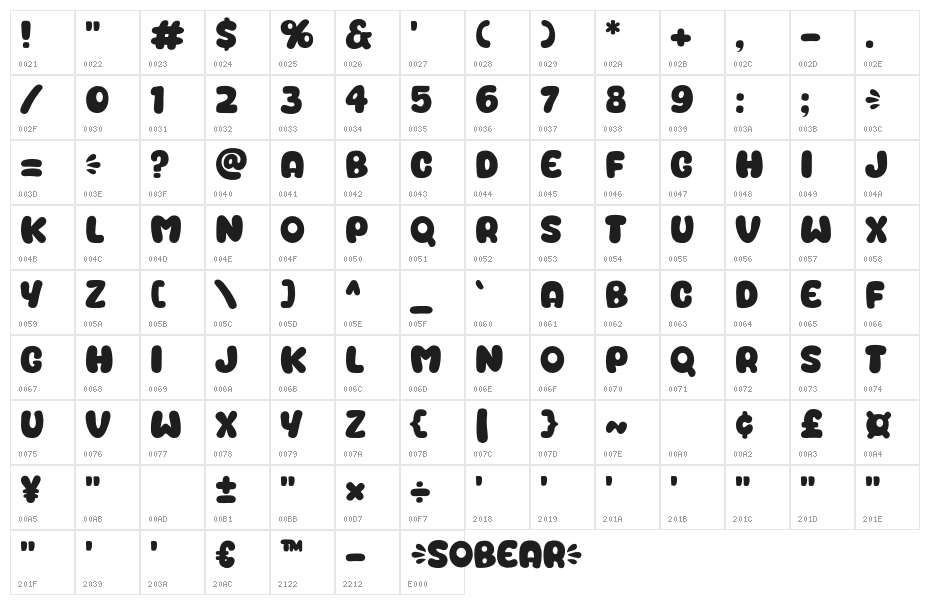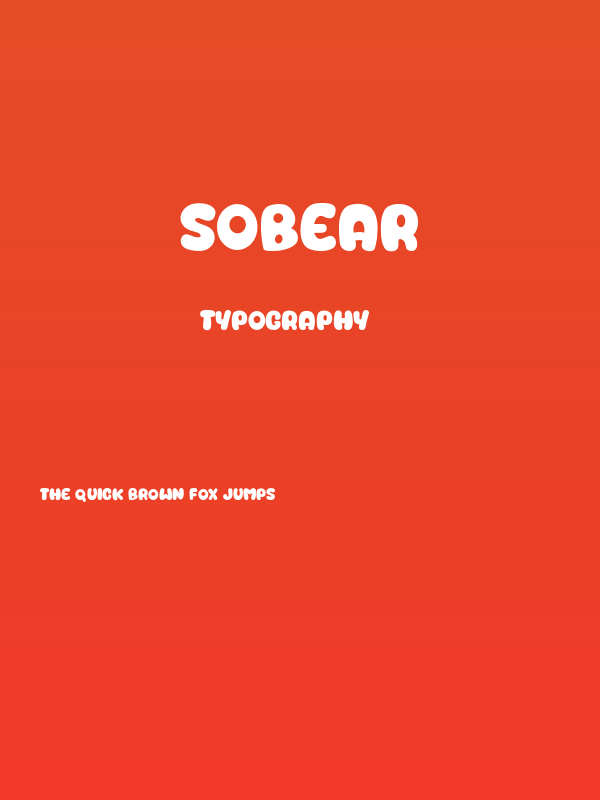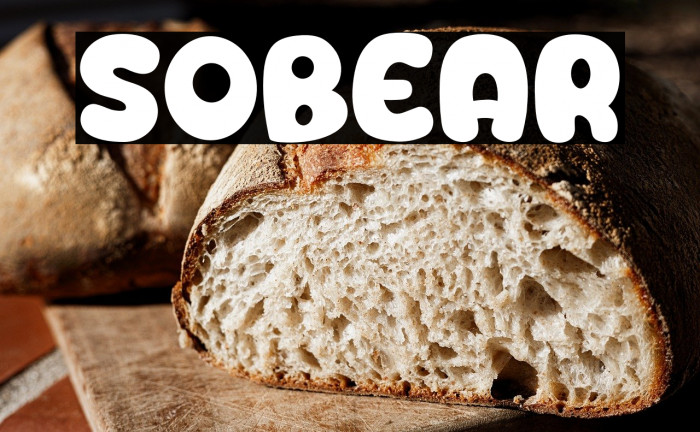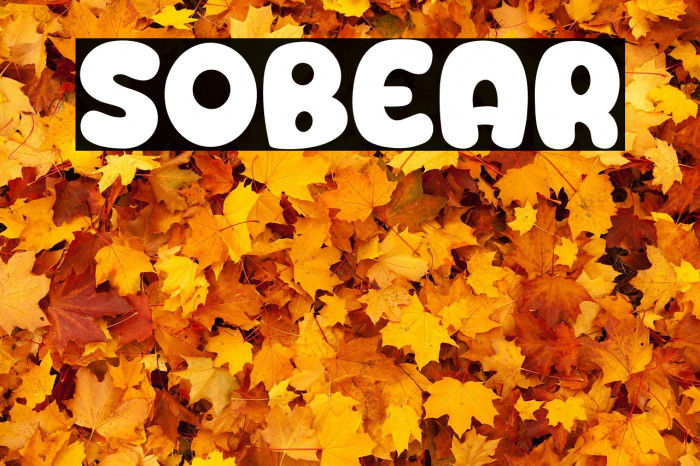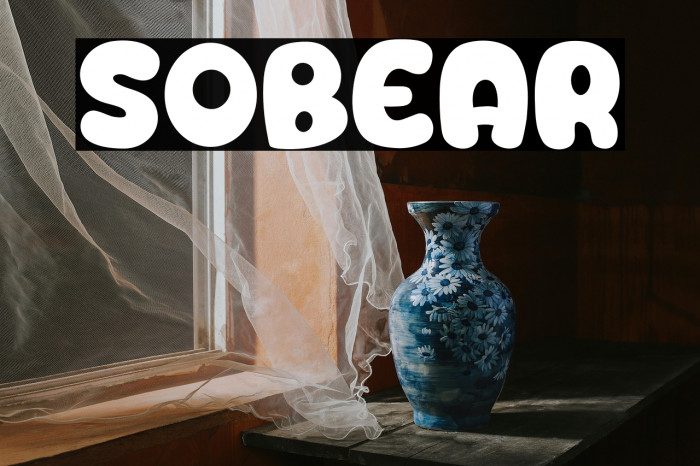
Sobear Font
Sobear Description
This playful and bold font features rounded, bubbly characters that exude a sense of fun and whimsy. The letters are thick and uniformly weighted, giving them a strong presence on the page. The rounded edges and lack of sharp angles contribute to a friendly and approachable aesthetic. The font includes a full set of uppercase and lowercase letters, numbers, and a variety of special characters, making it versatile for different design needs. Its distinct style is eye-catching and memorable, ideal for projects that require a touch of personality and charm.